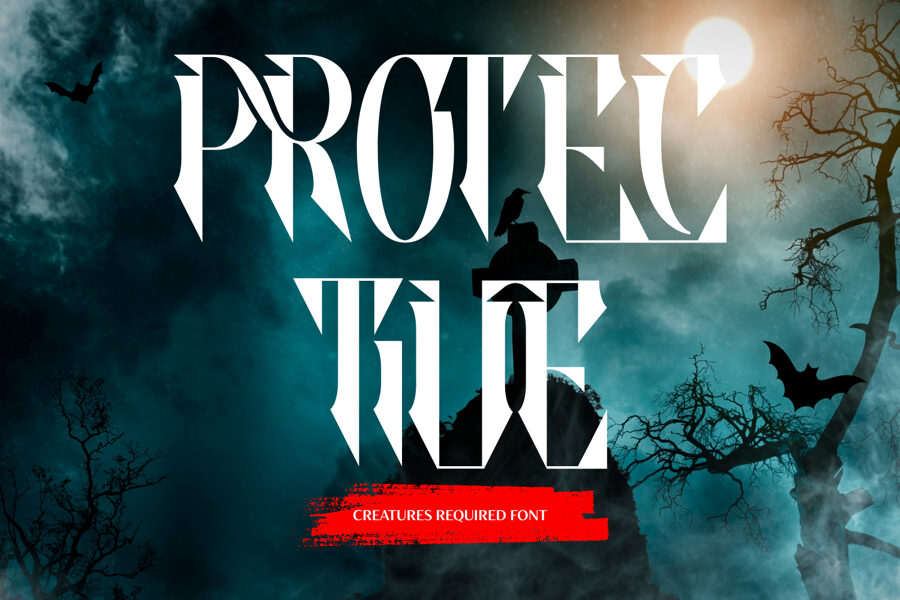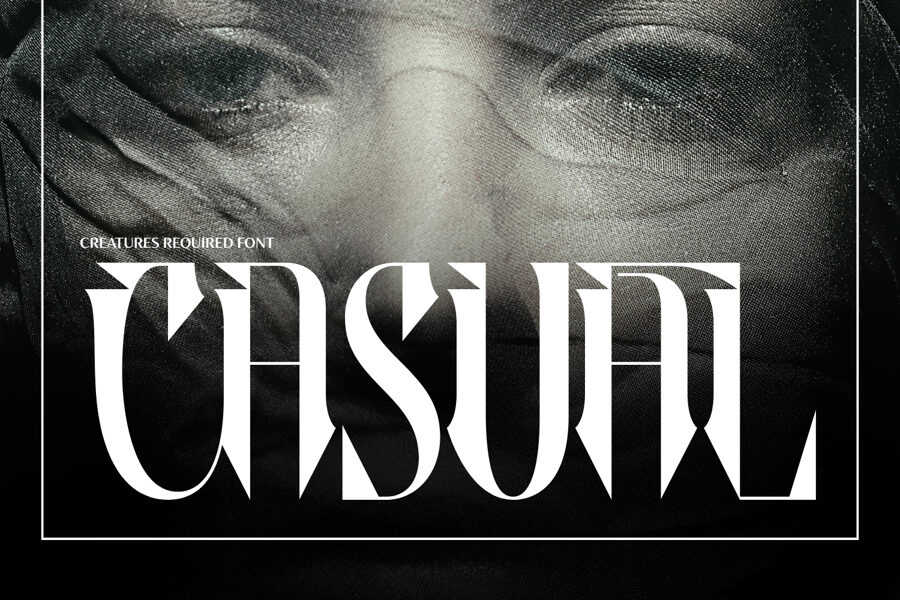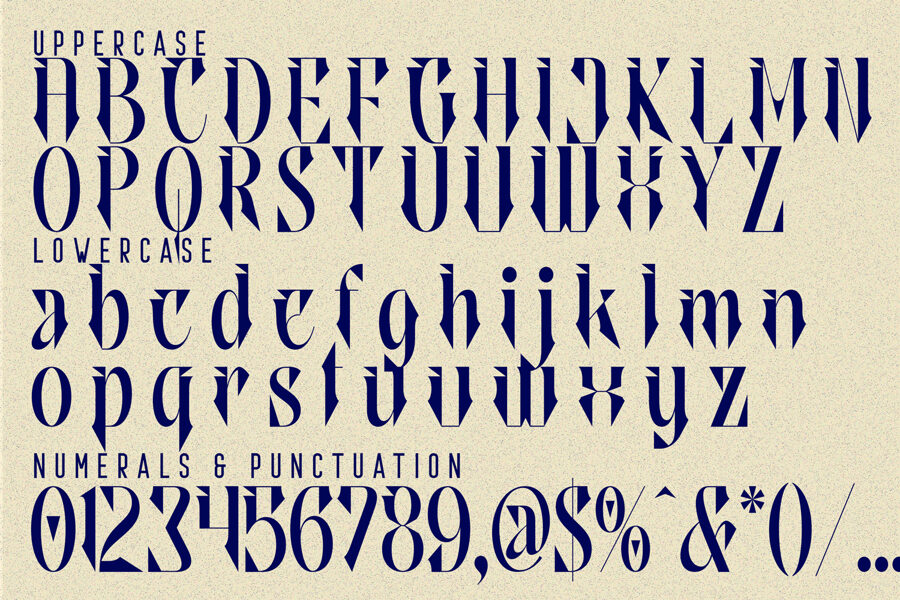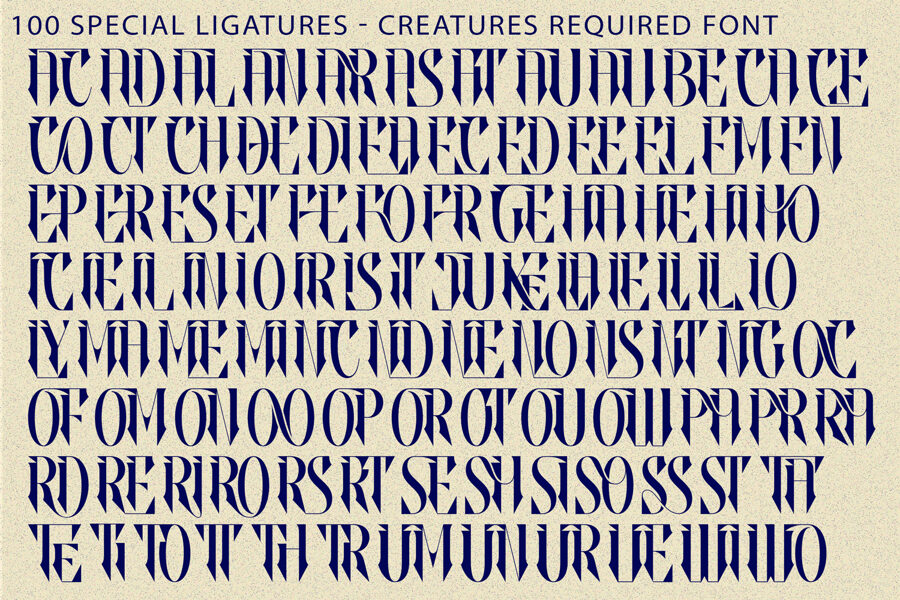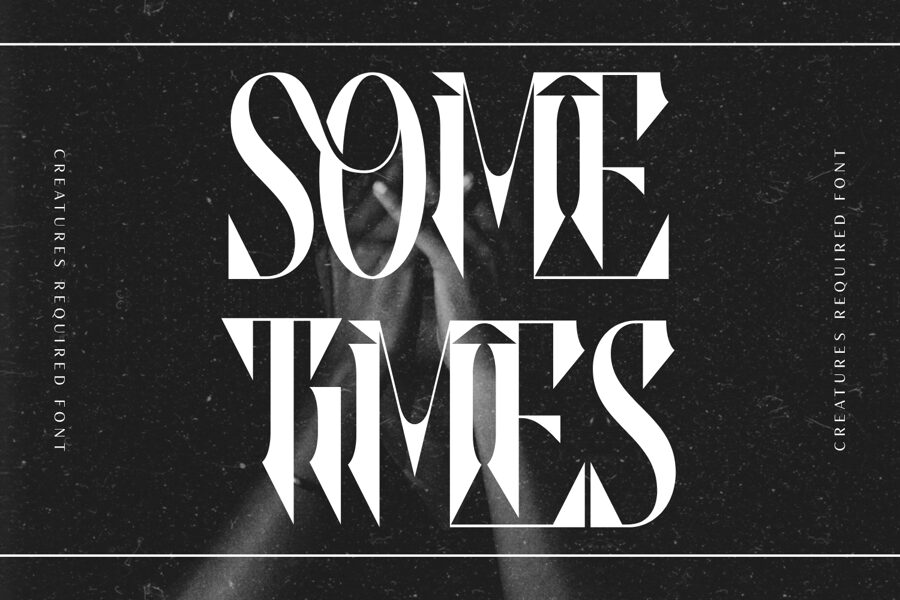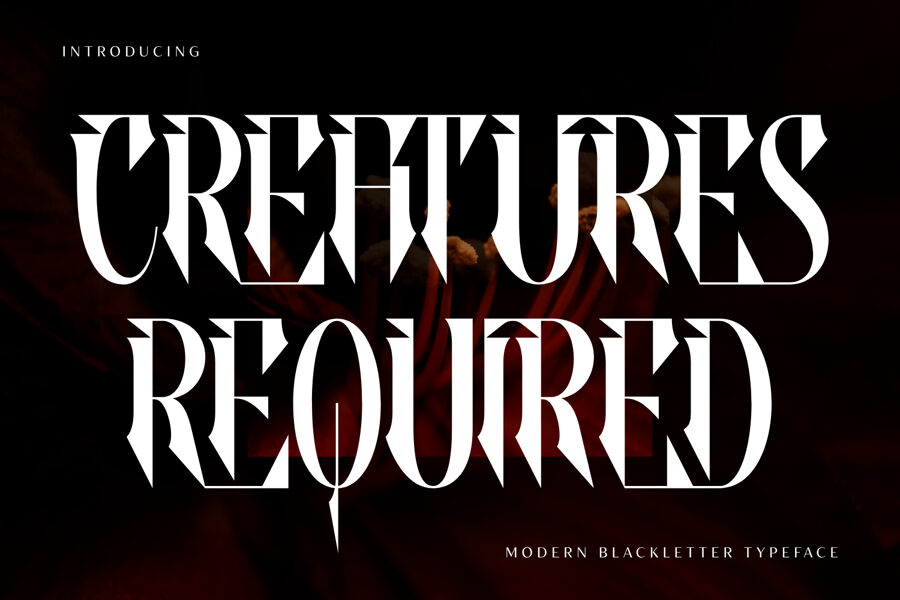
Creatures Required is a spellbinding modern gothic display font that seamlessly fuses razor-sharp dagger serifs with dramatic, high-contrast proportions. Engineered for dark fantasy concepts, luxury gothic branding, and high-impact editorial headlines, this typeface radiates an aura of dangerous elegance, mystery, and medieval power.
Featuring tall, condensed letterforms and dramatic spike terminals, Creatures Required creates an unforgettable visual command. Intricate details—like the razor-sharp descender on the ‘Q’ and crisp internal cutouts—give every character a bespoke, handcrafted touch. Whether you’re designing dark fantasy book covers, heavy metal album art, horror movie posters, or edgy fashion labels, this font brings an irresistible dark romantic edge to your artwork.